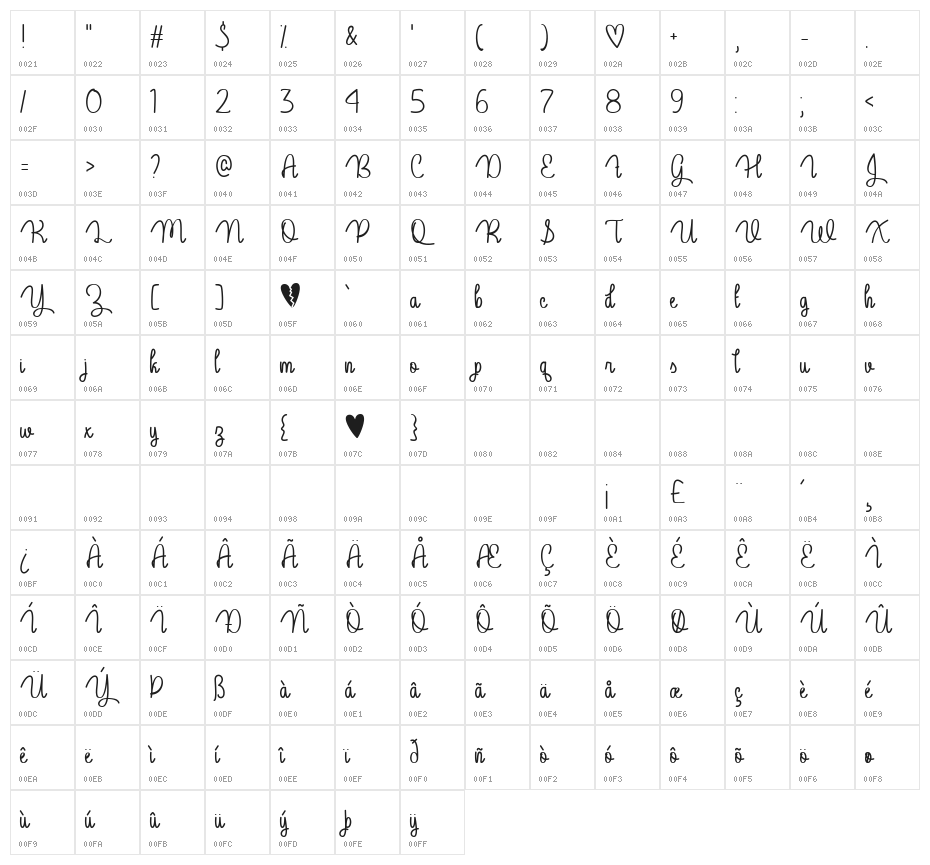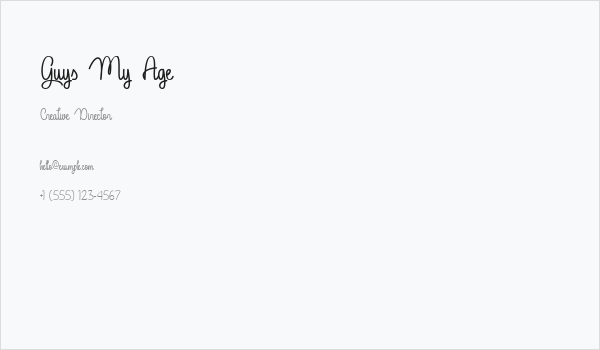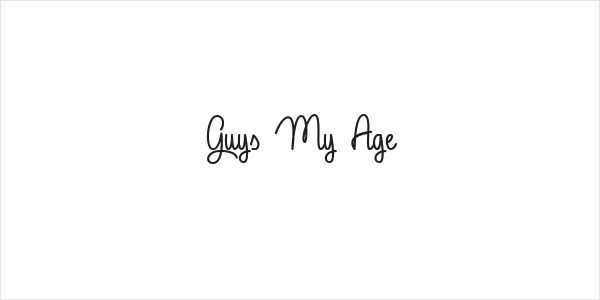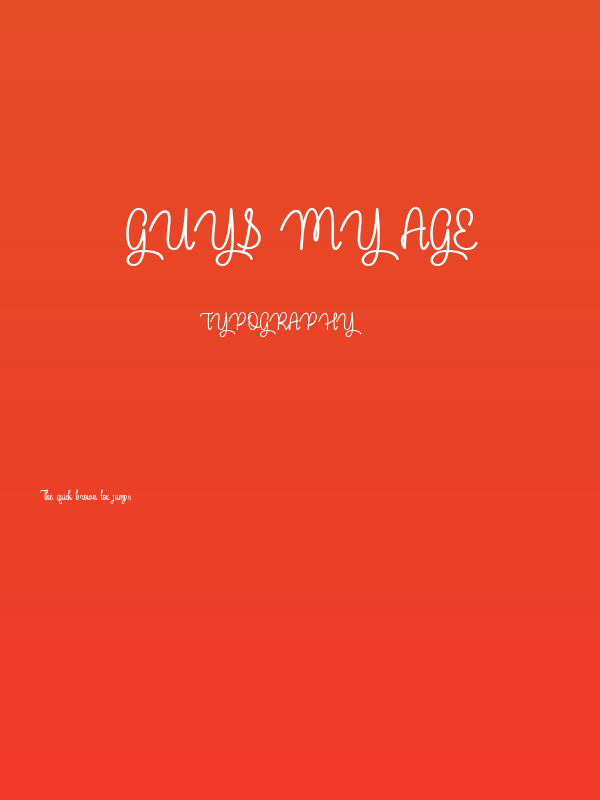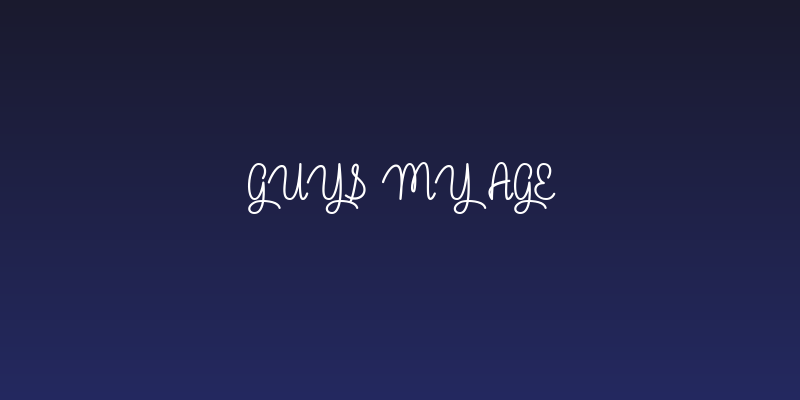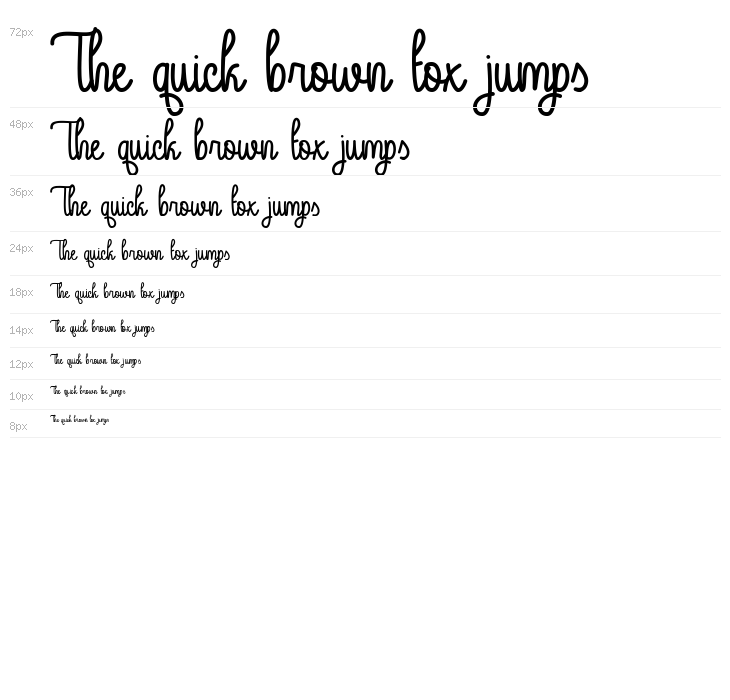
Guys My Age Font
Guys My Age Description
This font features a playful and whimsical script style, characterized by its flowing, interconnected letters. The uppercase letters are bold and slightly elongated, giving them a distinctive presence. The lowercase letters maintain a consistent flow, with rounded edges and a casual, handwritten feel. Numbers are clear and legible, maintaining the playful aesthetic. Special characters are creatively designed, adding to the font's overall charm. This font is ideal for projects that require a personal touch, such as invitations, greeting cards, or branding for creative businesses.
Overall StylePlayful, Whimsical
Use CaseHeadlines, Logos, Invitations
Proposed ProjectsIdeal for invitations, greeting cards, creative branding, and personal projects.